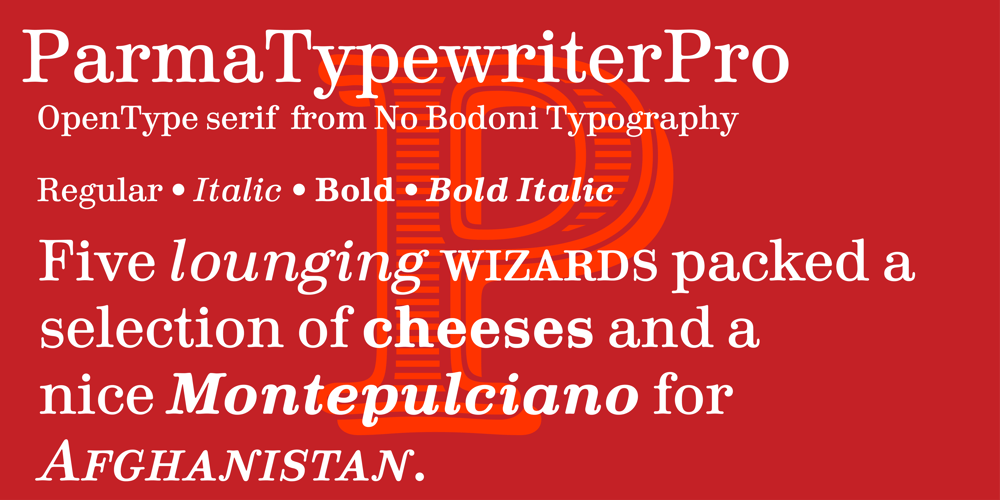
Parma Typewriter Pro
Parma Typewriter Pro font
Parma Typewriter Pro Font Family was designed by George E. Thompson and published by No Bodoni. Parma Typewriter Pro contains 4 styles and family package options. PARMA is a type-writer style face with the form and elegance of a Bodoni. Functional beauty was the aim of mating the two disparate ideas in one type, creating a utilitarian face with graceful features. We�re even converting the keys on our beloved old Olivetti portable to type in Parma Typowriter. And then we�re going to get a Lambretta scooter to go zipping around in and maybe one of those front opening Fiat cars for drives in the countryside.Hey, waiter! Where�s my order of Giambotti? And more Sangiovese for everyone!